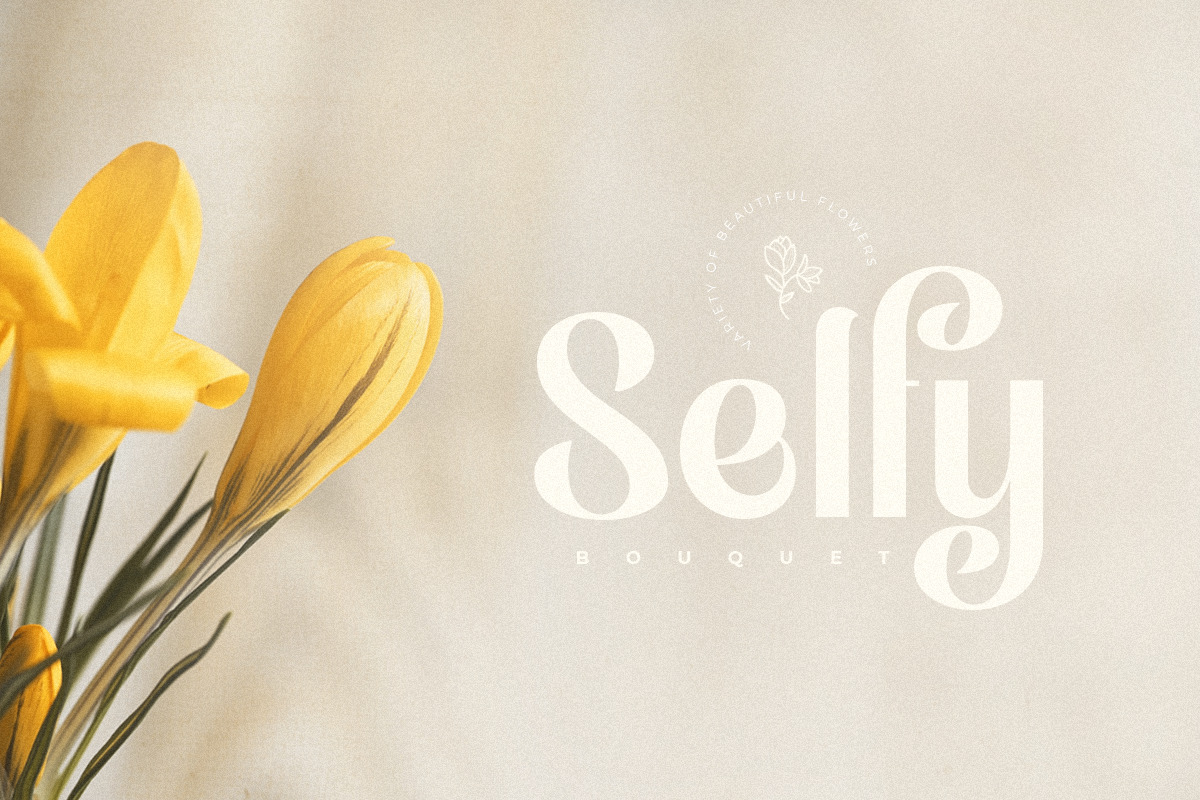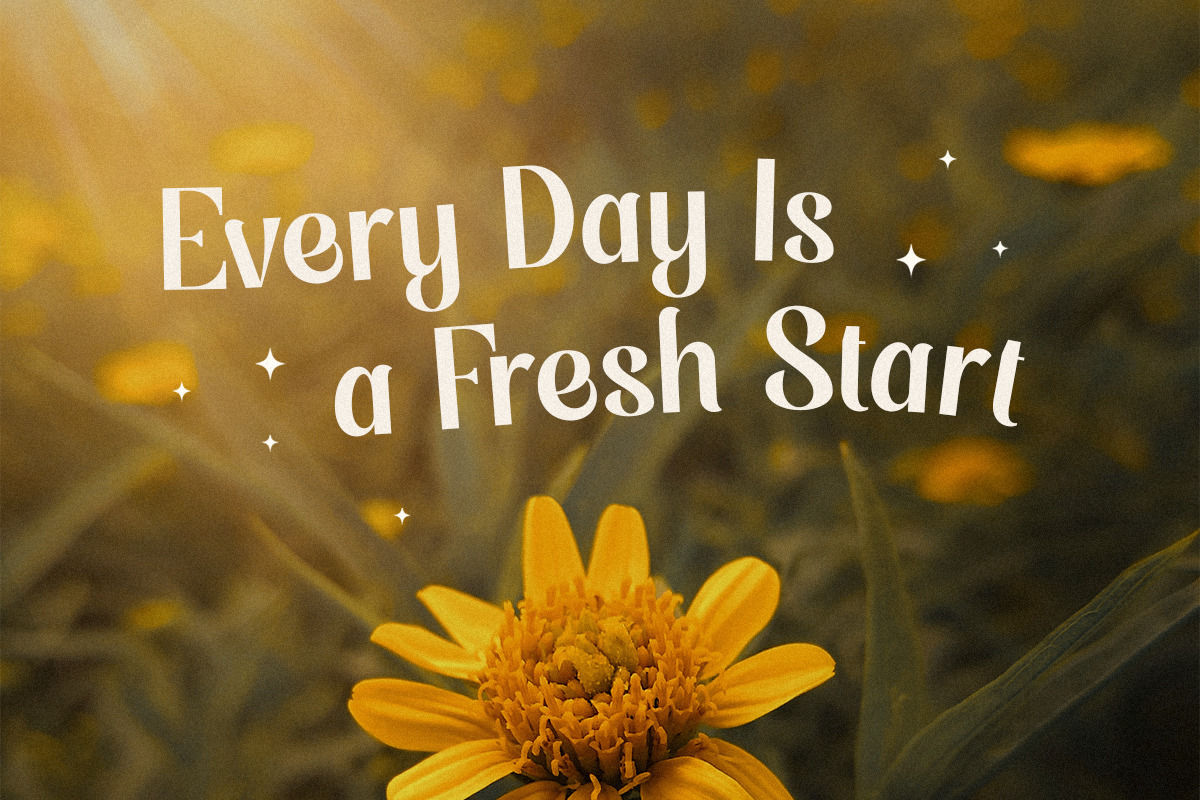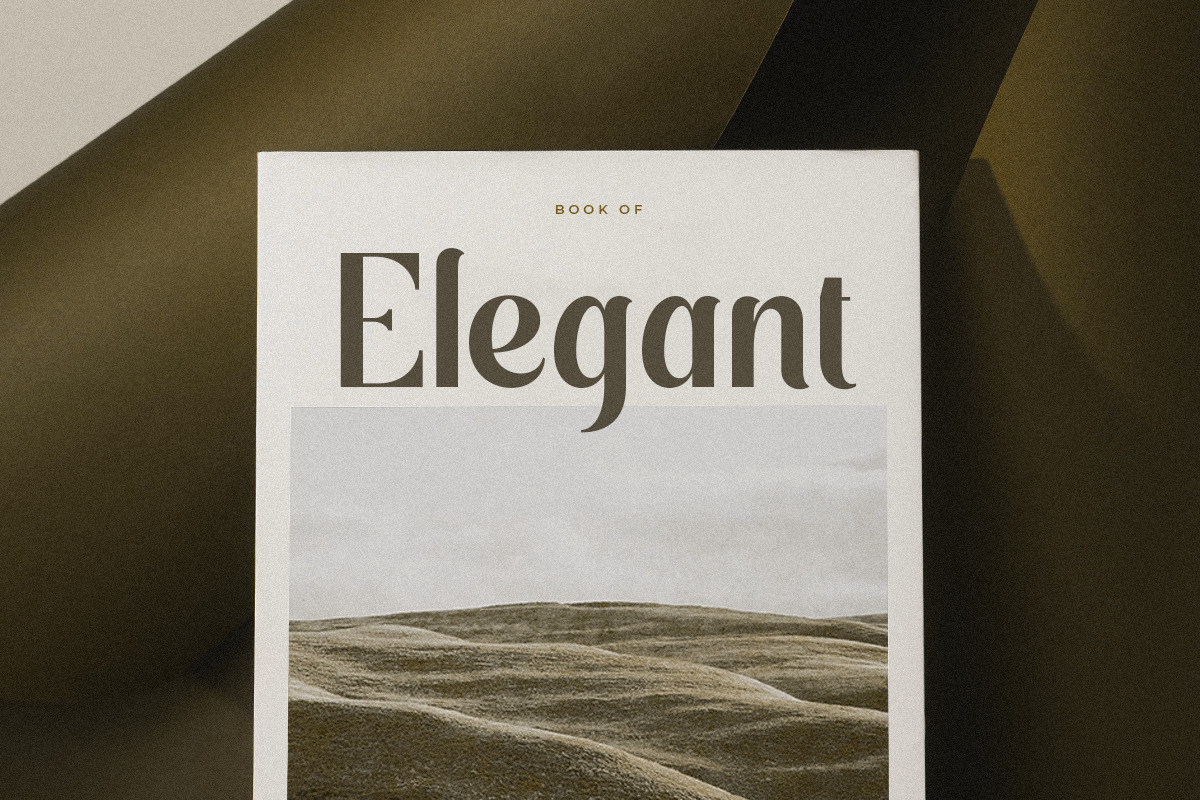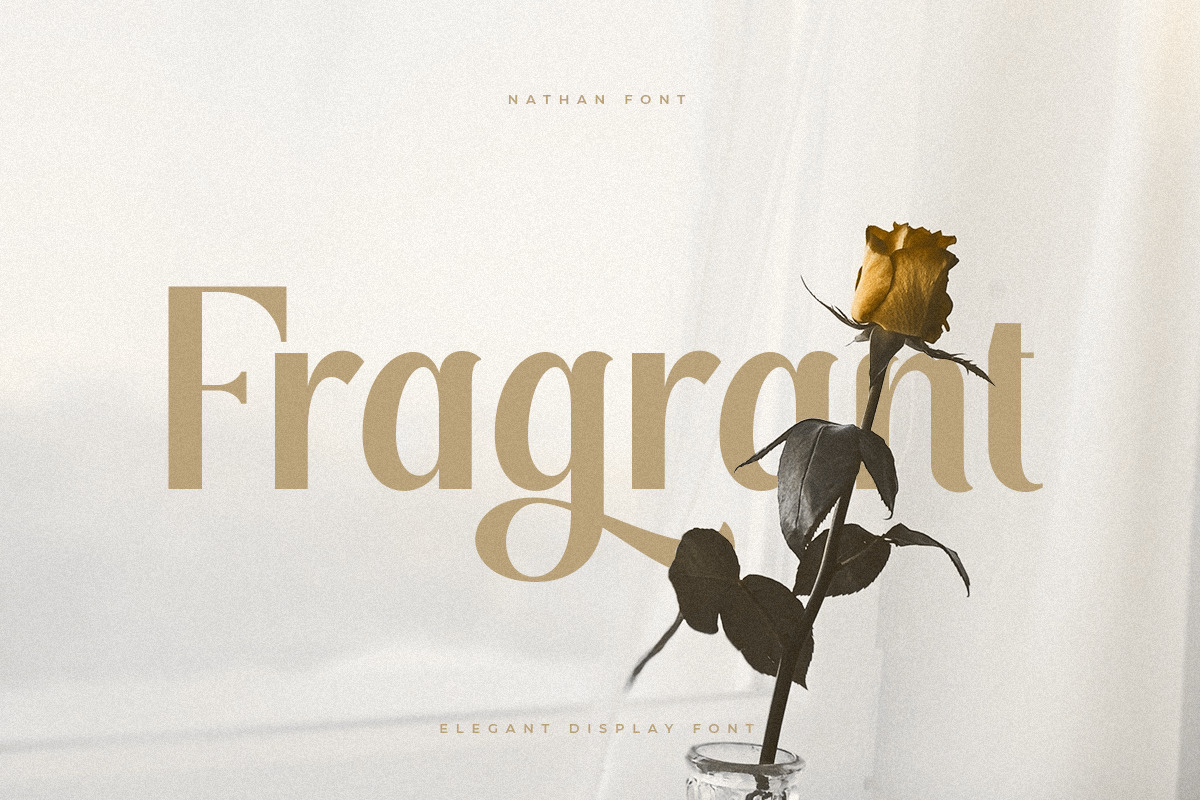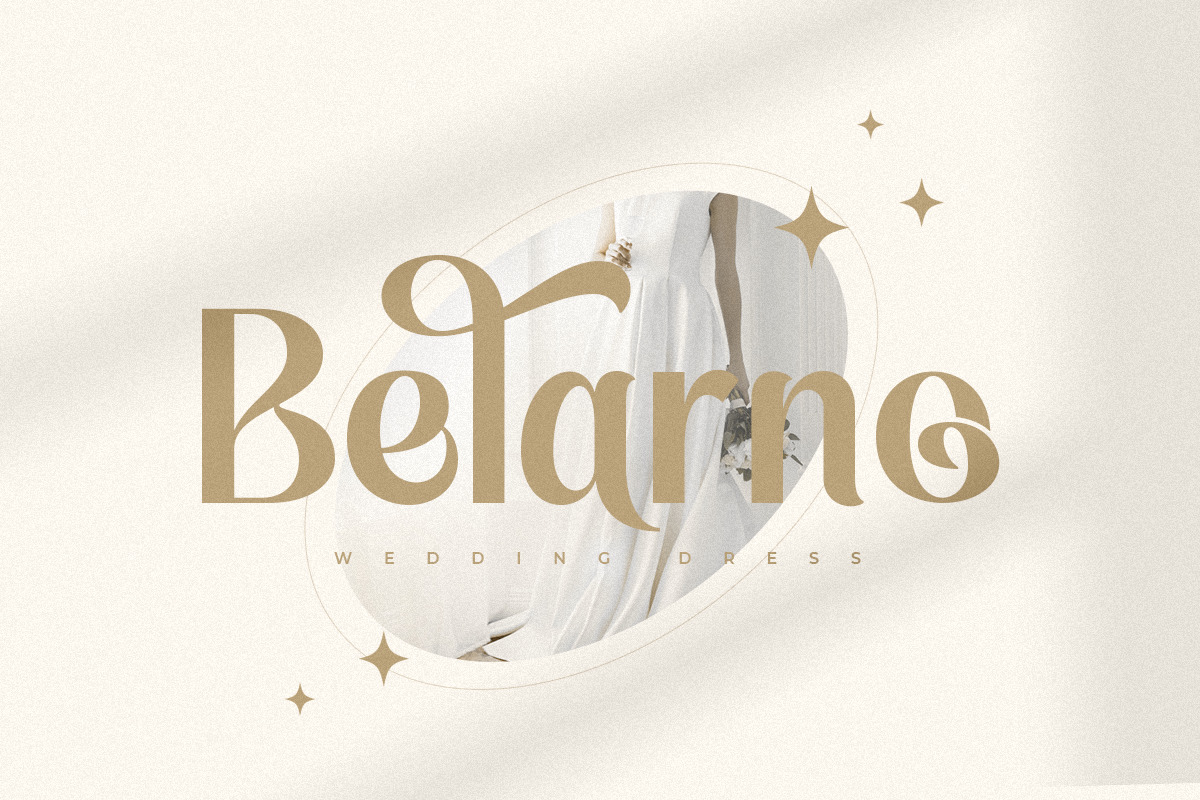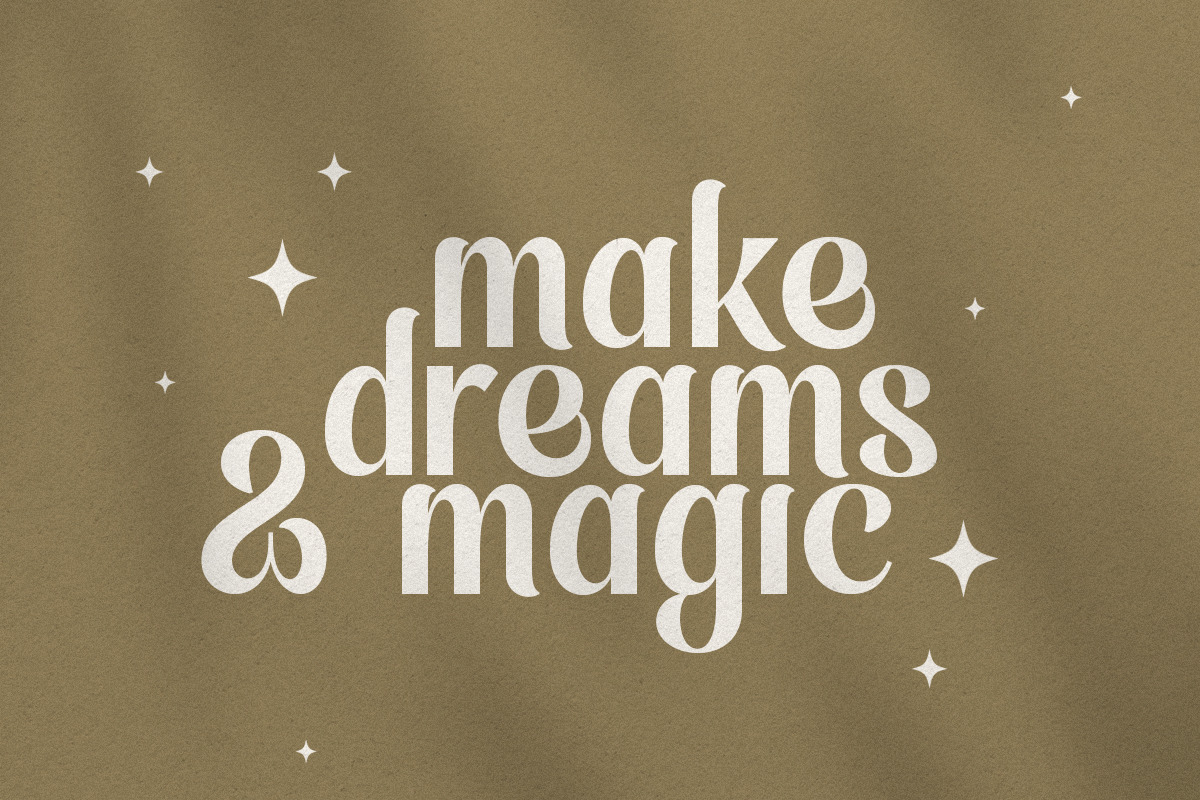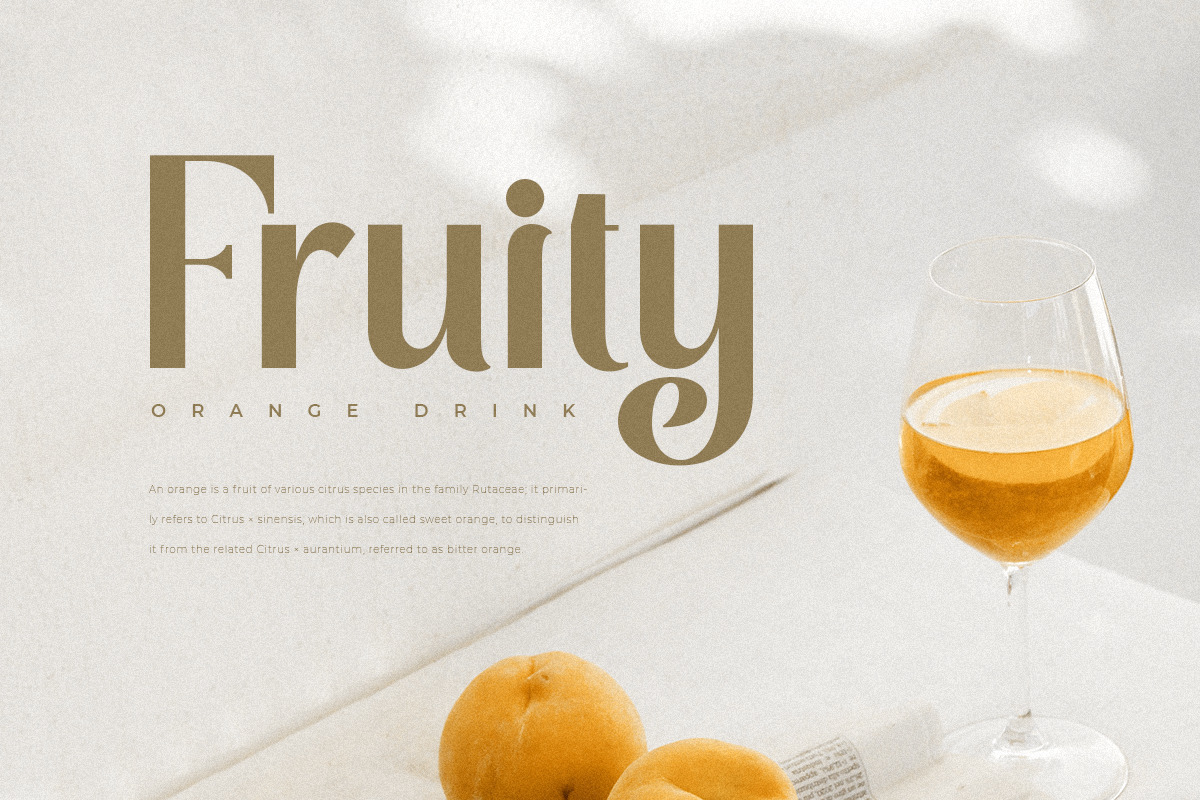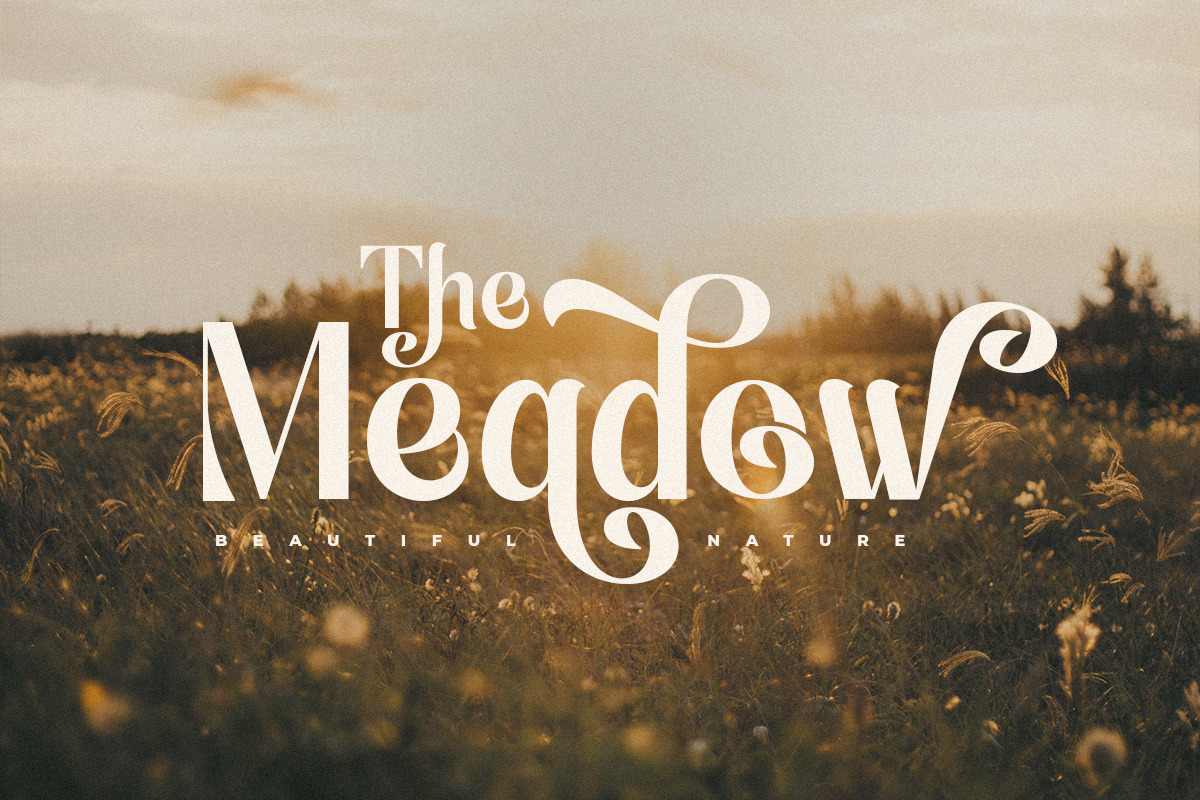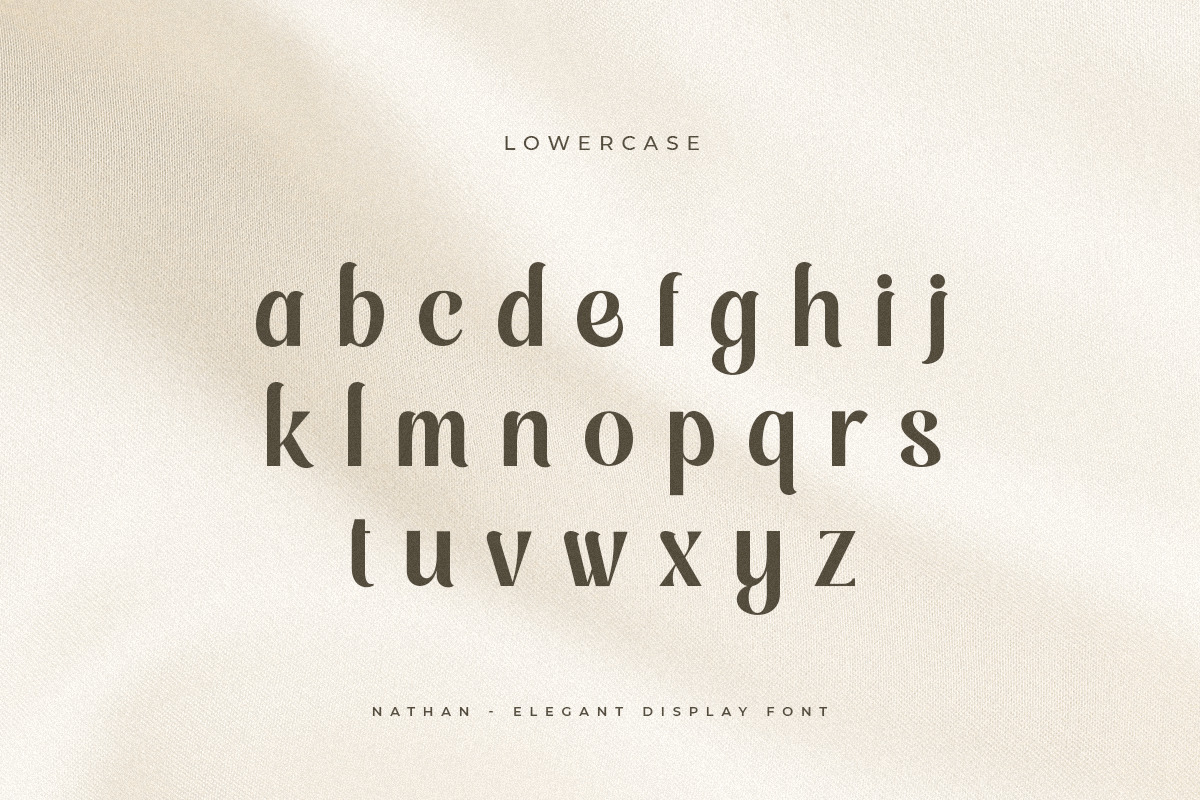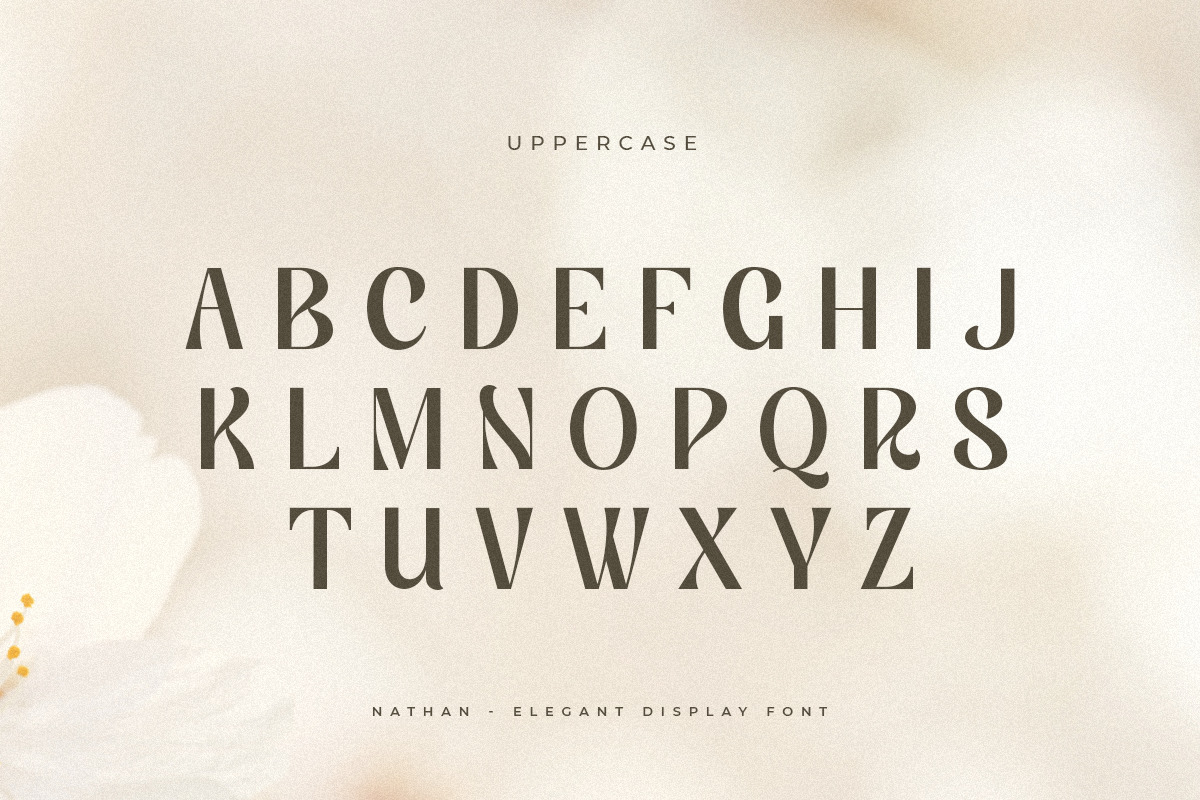
Nathan - Elegant Display Font
An Elegant Display Serif font that we created special for elegant branding needs, with unique shape will be ready to add value of your brand. It so nice to leverage designer or product owner that need solutions to make their design look more stylish and modern. And specially for Nathan font, We prepared any characters to help you create unlimited variations for your creative needs.
- Ready with Alternate Characters
- Ready with Lowercase and Uppercase characters